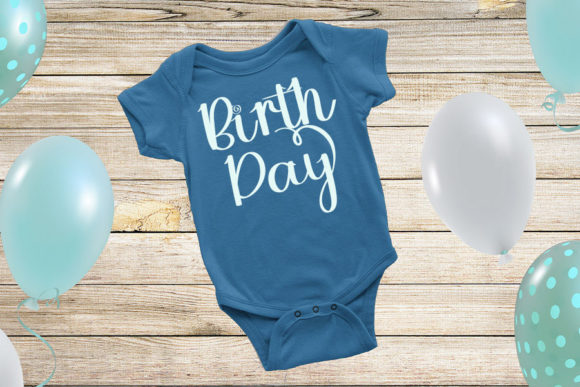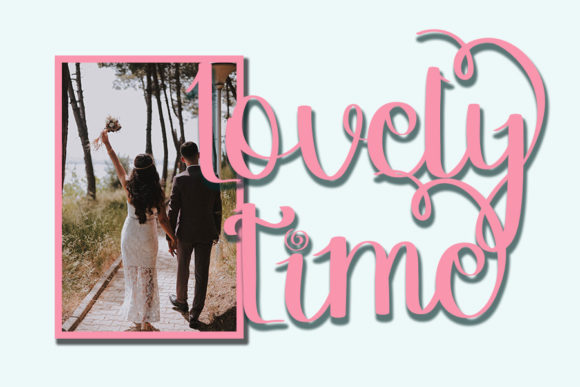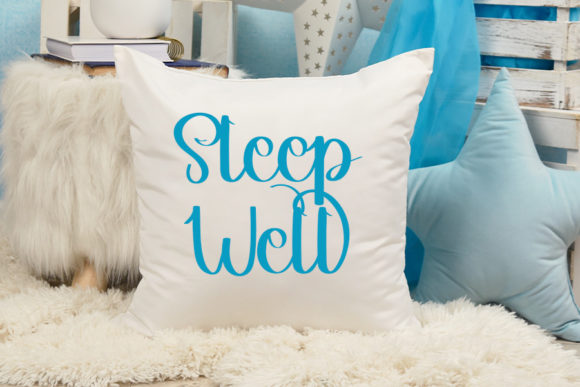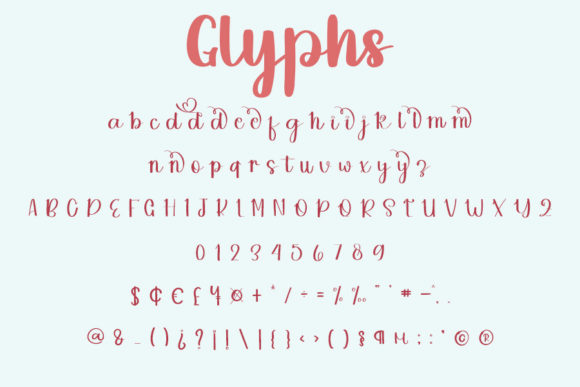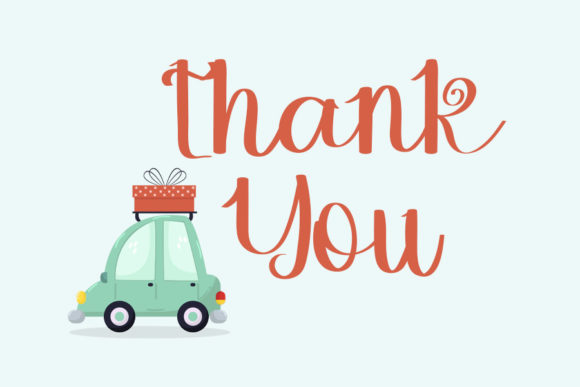
Discover the Magic of Holiday Sometime Font
As a designer, you know the thrill of finding that perfect font to bring your creative vision to life. It’s the moment when everything falls into place, and your design becomes truly special. Maybe you’re working on a holiday campaign, or perhaps you’re creating a romantic wedding invitation. Whatever the project, the right font can make all the difference.
Enter Holiday Sometime Font, a sweet and cursive handwritten font that’s sure to add a touch of joy and romance to your designs. With its gentle curves and playful feel, this font is perfect for a variety of design ideas, from holiday cards to wedding stationery. As a designer, you’ll appreciate the versatility and charm of Holiday Sometime Font, and how it can elevate your projects to the next level.
Holiday Sometime Font Key Features
- Unique Characteristics: Holiday Sometime Font features a unique, handwritten style with a mix of cursive and script elements, making it perfect for adding a personal touch to designs.
- Character Set: The font includes a comprehensive character set, including uppercase and lowercase letters, numerals, punctuation marks, and special characters, making it suitable for a wide range of languages and applications.
Holiday Sometime Font Review
I recently had the chance to work with the Holiday Sometime Font, and I must say it’s a mixed bag. Here’s my honest take on this font.
- Unique charm: The Holiday Sometime Font has a distinct, nostalgic feel that’s perfect for projects that need a touch of vintage charm.
- Playful variations: The font offers a range of playful variations that can add a fun twist to your designs.
- Legibility: Despite its quirky nature, the font is still legible and easy to read, making it a great choice for body text.
- Limited versatility: While the font is perfect for certain projects, it may not be the best choice for more formal or professional designs.
- Slightly overused: The font’s unique charm can also make it feel overused or clichéd in certain contexts.
- No bold weights: The font is missing bold weights, which can make it difficult to use in situations where a strong, bold headline is needed.
Overall, I think the Holiday Sometime Font is a great choice for projects that need a playful, vintage touch. However, it may not be the best fit for more formal or professional designs. With a bit more versatility and some additional weight options, this font could be truly exceptional.
For the most effective use of Holiday Sometime Font, consider the following tips:
Use it for festive and seasonal designs, such as holiday cards and invitations.
Combine it with bright and bold colors to create a fun and playful atmosphere.
Experiment with different font sizes and styles to add visual interest.